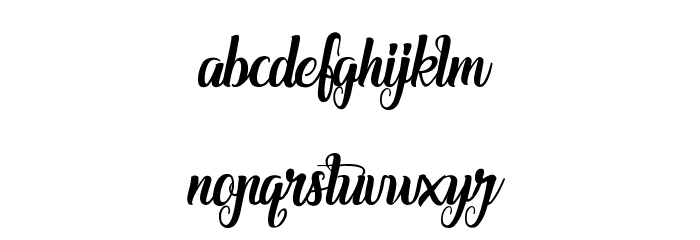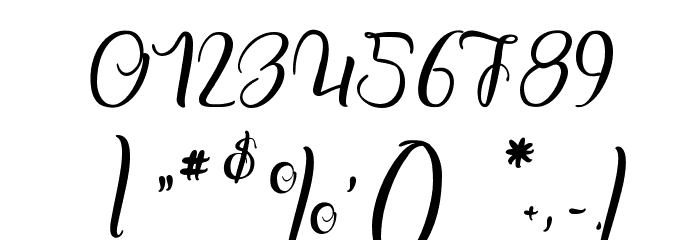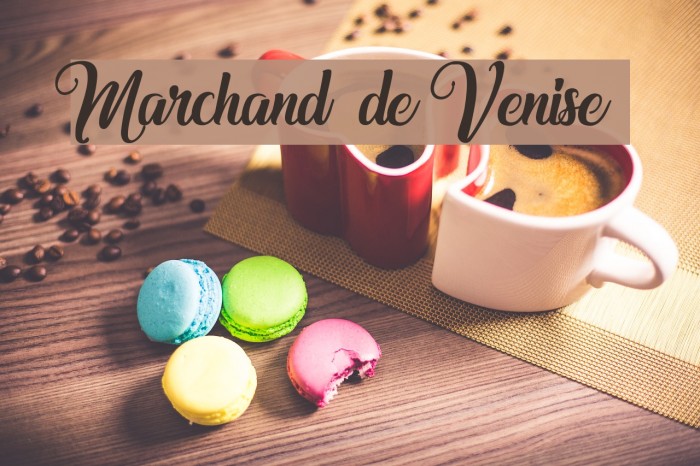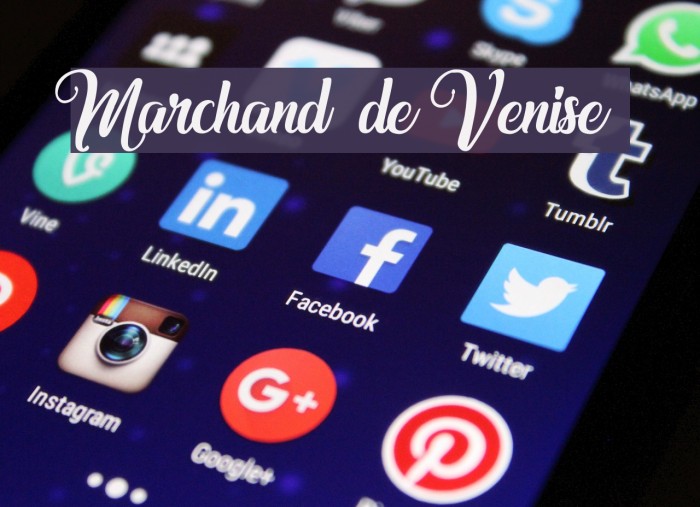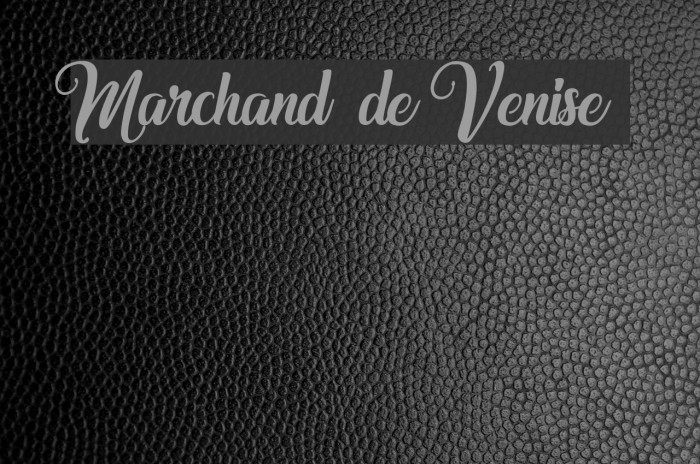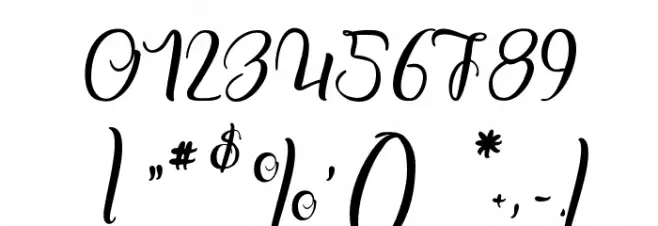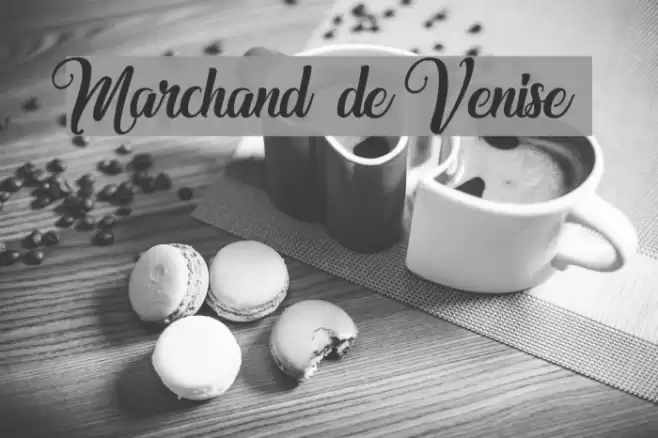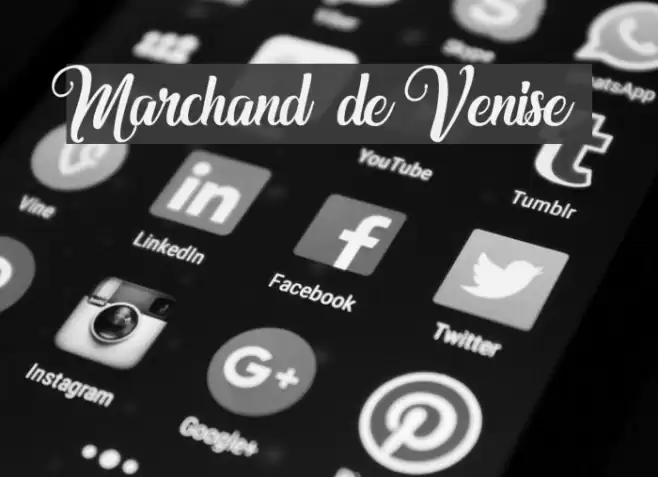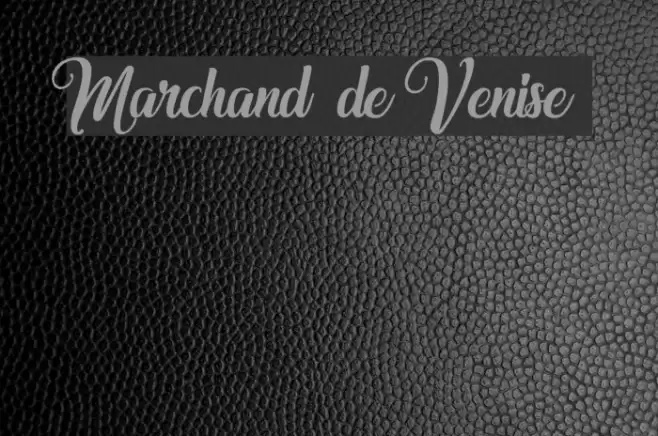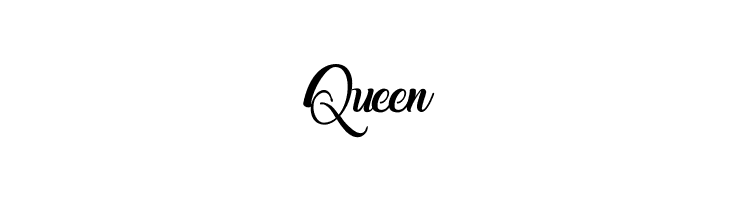
Marchand de Venise Font
This elegant script font features a flowing, cursive style with intricate loops and flourishes, giving it a sophisticated and artistic appearance. The uppercase letters are particularly ornate, with sweeping curves and decorative elements that enhance their visual appeal. The lowercase letters maintain a consistent style, offering a harmonious blend of readability and decorative flair. Numbers and special characters are designed to match the overall aesthetic, ensuring a cohesive look across all text elements. This font is ideal for projects that require a touch of elegance and sophistication.
An elegant script font with intricate loops and flourishes.
- Proposed Projects: Wedding invitations, luxury branding, elegant event posters, and artistic book covers.
- Category: Script
- Overall Style: Elegant
- Use Case: Logos, Invitations, Decorative text